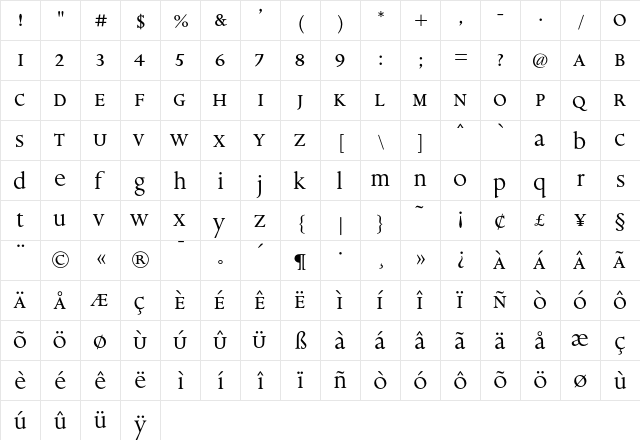
Aries RomanSmallCapLowerCase
Design Context for Aries Typeface
Aries takes a measured approach to typography — its balanced proportions and neutral character make it a reliable workhorse for both digital and print work.